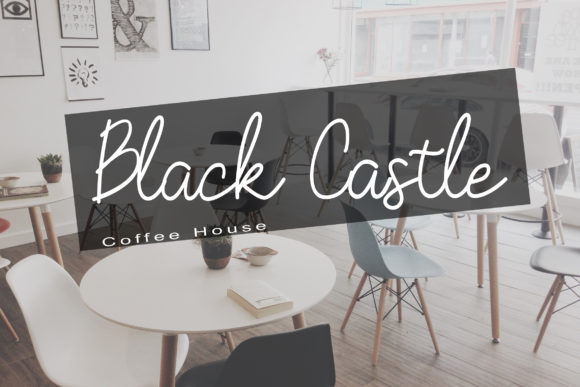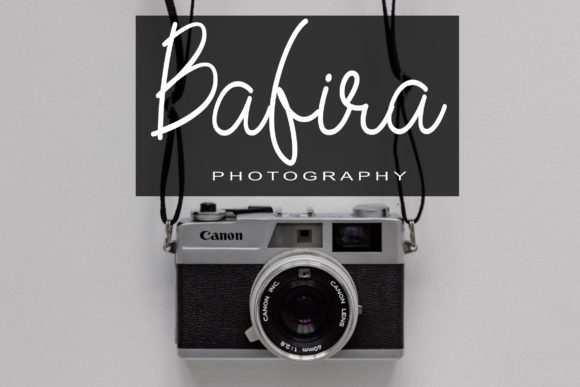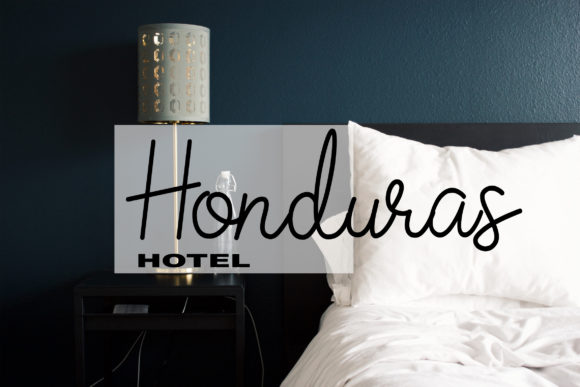
Introduction to Aqila Font
The Aqila is a typical handwritten signature font.
It will give your designs a striking, yet elegant look .
Why Choose Aqila Font?
Aqila Font offers exceptional quality and versatility, making it a valuable addition to your design toolkit. Whether you’re creating for personal projects or commercial use, Aqila Font delivers professional results.